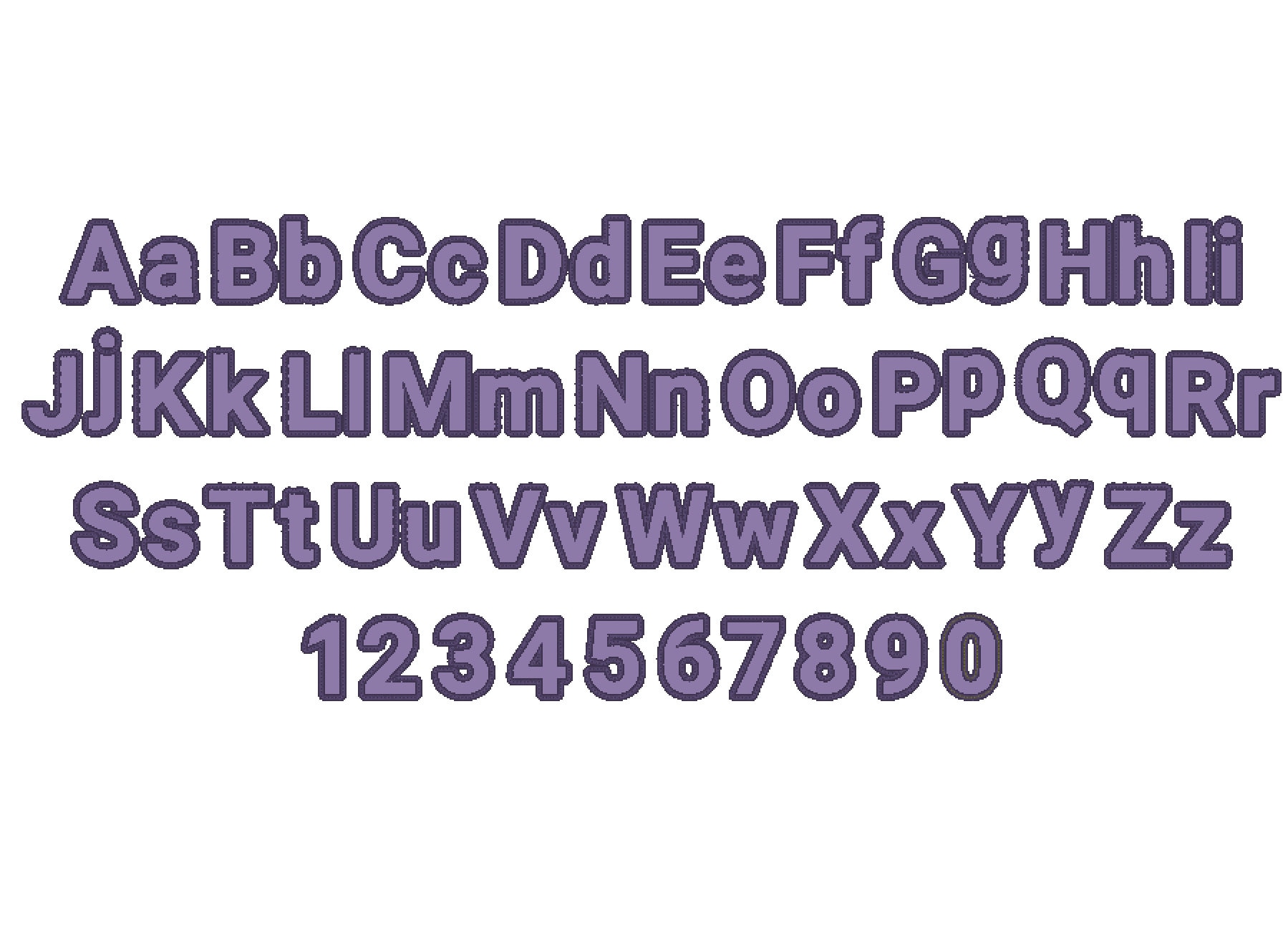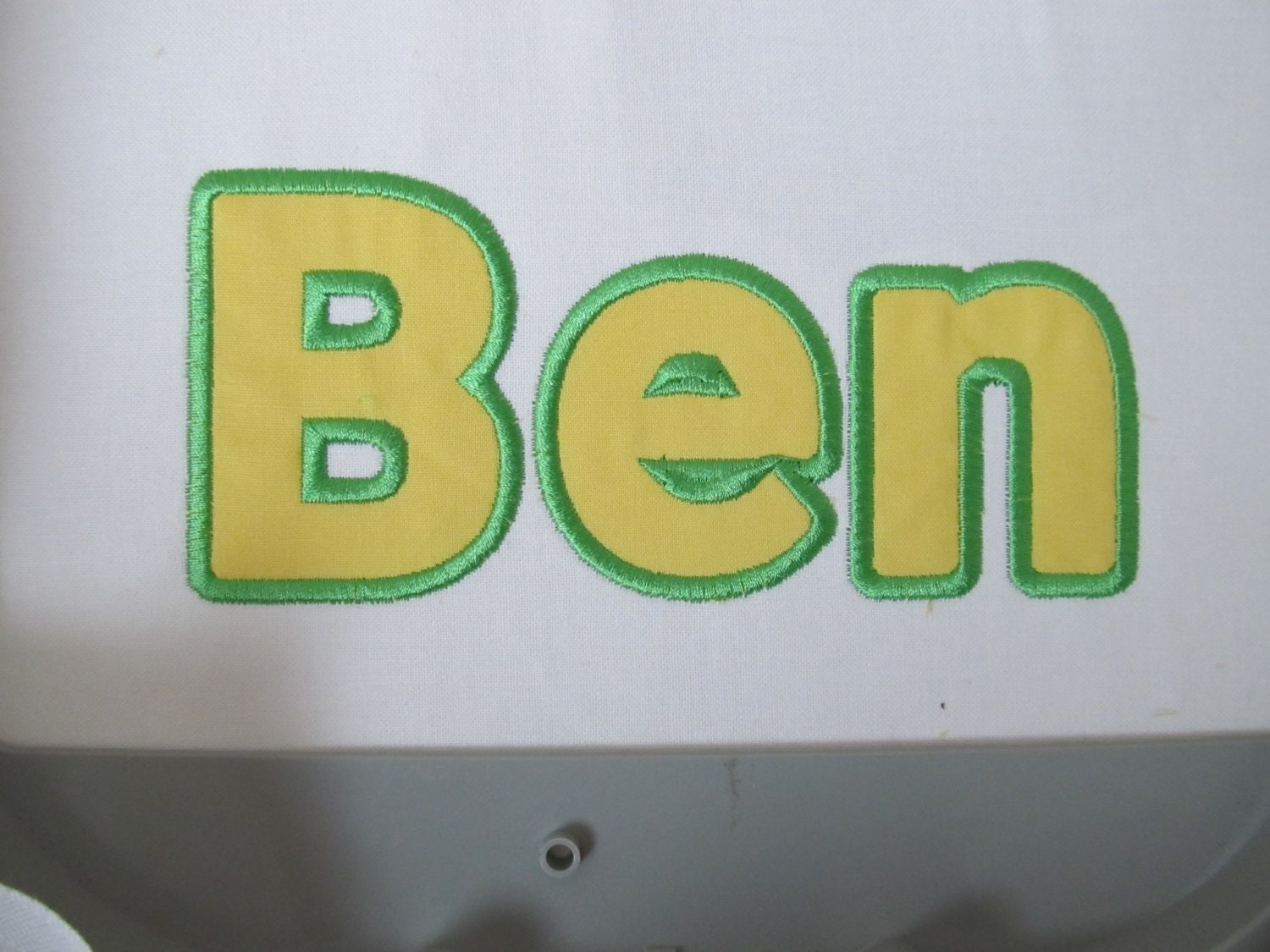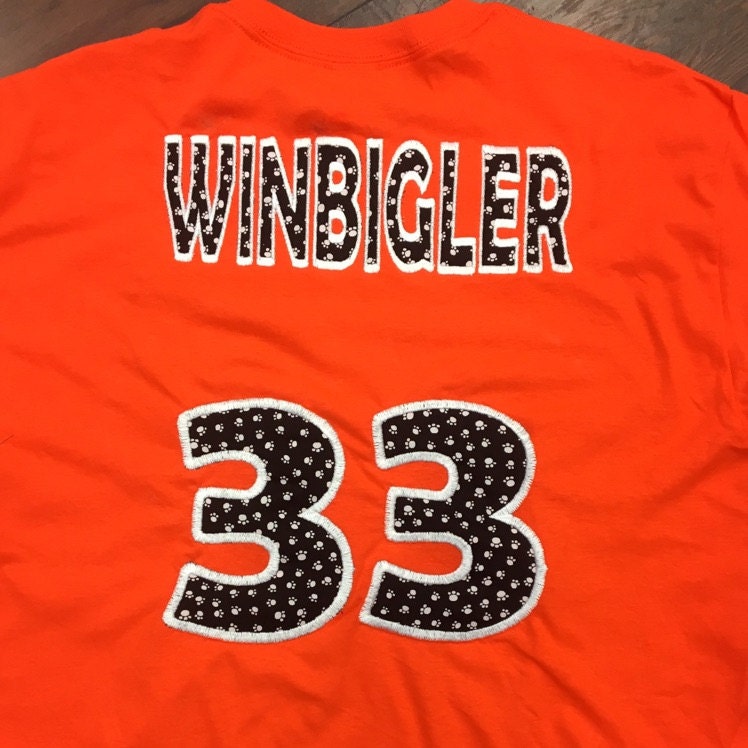
Monogram applique Font machine embroidery applique designs, monogram, alphabet, letters and numbers 2, 2,7 and 3 inches
Uppercase and lowercase letters and numbers
Applique font with nice wide satin stitch outline. Has wide nice wide satin applique stitch and top triple stitch on top for neat look and secure while washing. Can be skipped!
Amazing seller. Cute font. Just fyi, the capital letter used three passes, while the lower case only did two, so no positioning stitches. Not a problem, but it would have been nice to know there's a difference before I started.